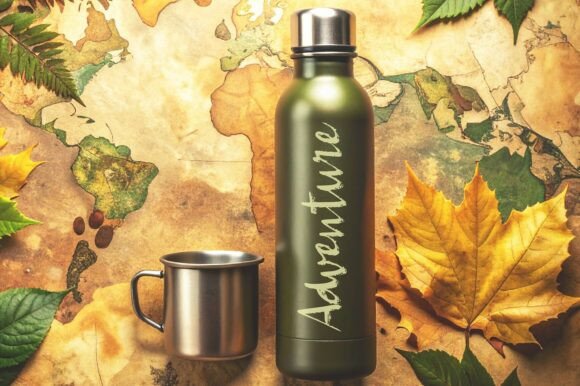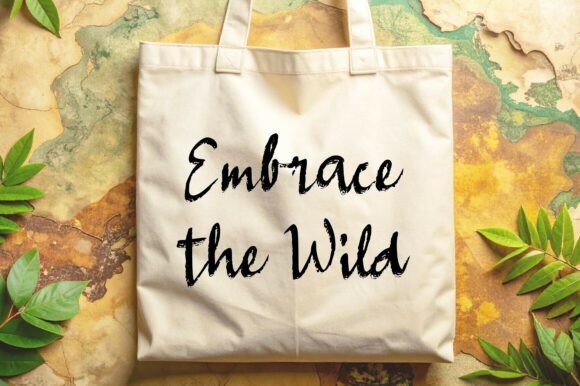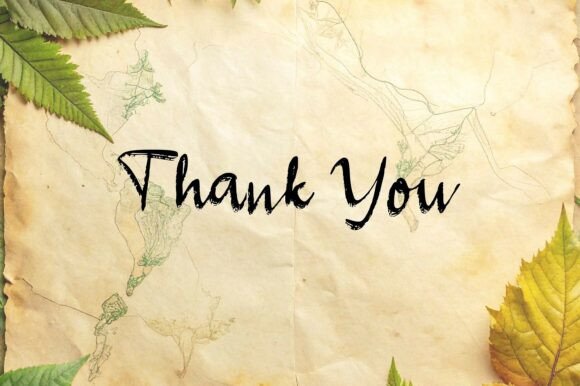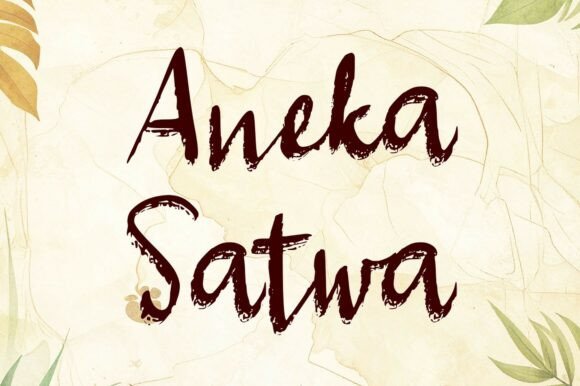
Aneka Satwa Font: Unleashing the Spirit of Adventure and Nature
In the world of typography, few fonts capture the essence of adventure and natural charm as effectively as Aneka Satwa. This wonderfully expressive and robust script typeface is designed to evoke the spirit of the great outdoors, making it an ideal choice for designers and crafters looking to convey a sense of authenticity and ruggedness in their work.
The Distinctive Characteristics of Aneka Satwa
Aneka Satwa’s strong, confident strokes and slightly irregular baseline give it a distinct, handcrafted appeal that sets it apart from more polished and refined fonts. The characters are well-defined, yet flow together organically, making it highly legible while retaining a dynamic, unpolished beauty. This unique blend of elegance and ruggedness makes Aneka Satwa an excellent choice for projects that aim to evoke a sense of the outdoors, nature, or a rugged, organic aesthetic.
Perfect for Outdoor and Eco-Friendly Branding
Aneka Satwa is particularly effective for branding outdoor gear, eco-friendly products, adventure travel blogs, or any design seeking a genuine, down-to-earth, and slightly rustic vibe. Its warm, handwritten feel and strong, impactful presence make it an excellent choice for designers looking to create a lasting impression. Whether you’re working on a logo, packaging, or marketing materials, Aneka Satwa’s versatility allows it to be both inviting and assertive, making it a powerful tool for conveying messages of authenticity.
Combining Warmth and Impact
One of the standout features of Aneka Satwa is its ability to combine the warmth of a handwritten font with a strong, impactful presence. This distinguishes it from more delicate scripts, which often lack the ruggedness and character of Aneka Satwa. The font’s unique blend of elegance and ruggedness makes it an excellent choice for designers looking to add a touch of personality to their work.
Versatility and Legibility
Aneka Satwa’s versatility is one of its greatest strengths. The font can be used in a variety of contexts, from headlines and titles to body copy and marketing materials. Its legibility ensures that it remains clear and readable, even at smaller sizes, making it an excellent choice for designers working on a range of projects. Whether you’re working on a website, brochure, or social media graphics, Aneka Satwa is a reliable and effective choice.
Adding a Touch of Authenticity
In today’s digital age, it’s easy to get lost in a sea of generic, cookie-cutter fonts. Aneka Satwa offers a refreshing alternative, providing designers with a unique and authentic way to convey their message. The font’s handcrafted appeal and rugged charm make it an excellent choice for designers looking to add a touch of personality to their work. Whether you’re working on a branding project, packaging, or marketing materials, Aneka Satwa is an excellent choice for designers looking to create a lasting impression.
Design and Crafting Applications
Aneka Satwa’s unique blend of elegance and ruggedness makes it an excellent choice for a range of design and crafting applications. Whether you’re working on:
- Outdoor gear branding and packaging
- Eco-friendly product design and marketing materials
- Adventure travel blogs and websites
- Handmade crafts and DIY projects
- Stationery and paper crafts
Aneka Satwa is a versatile and effective font that can help you convey your message and create a lasting impression.
Aneka Satwa is a wonderfully expressive and robust script typeface that captures the essence of adventurous spirit and natural charm. Its unique blend of elegance and ruggedness makes it an excellent choice for designers and crafters looking to convey a sense of authenticity and ruggedness in their work. With its strong, confident strokes and slightly irregular baseline, Aneka Satwa is a powerful tool for designers looking to add a touch of personality to their work. Whether you’re working on a branding project, packaging, or marketing materials, Aneka Satwa is an excellent choice for designers looking to create a lasting impression.